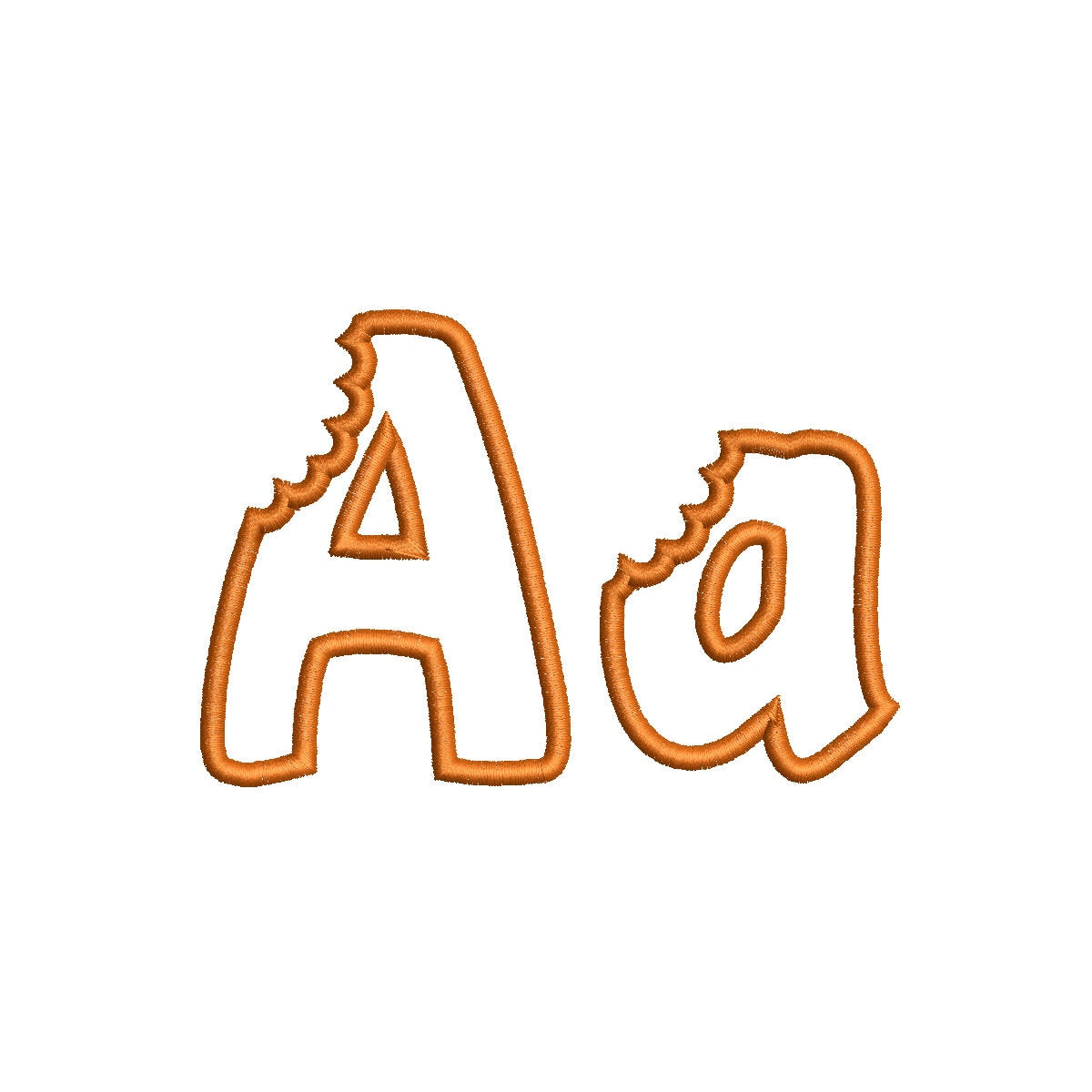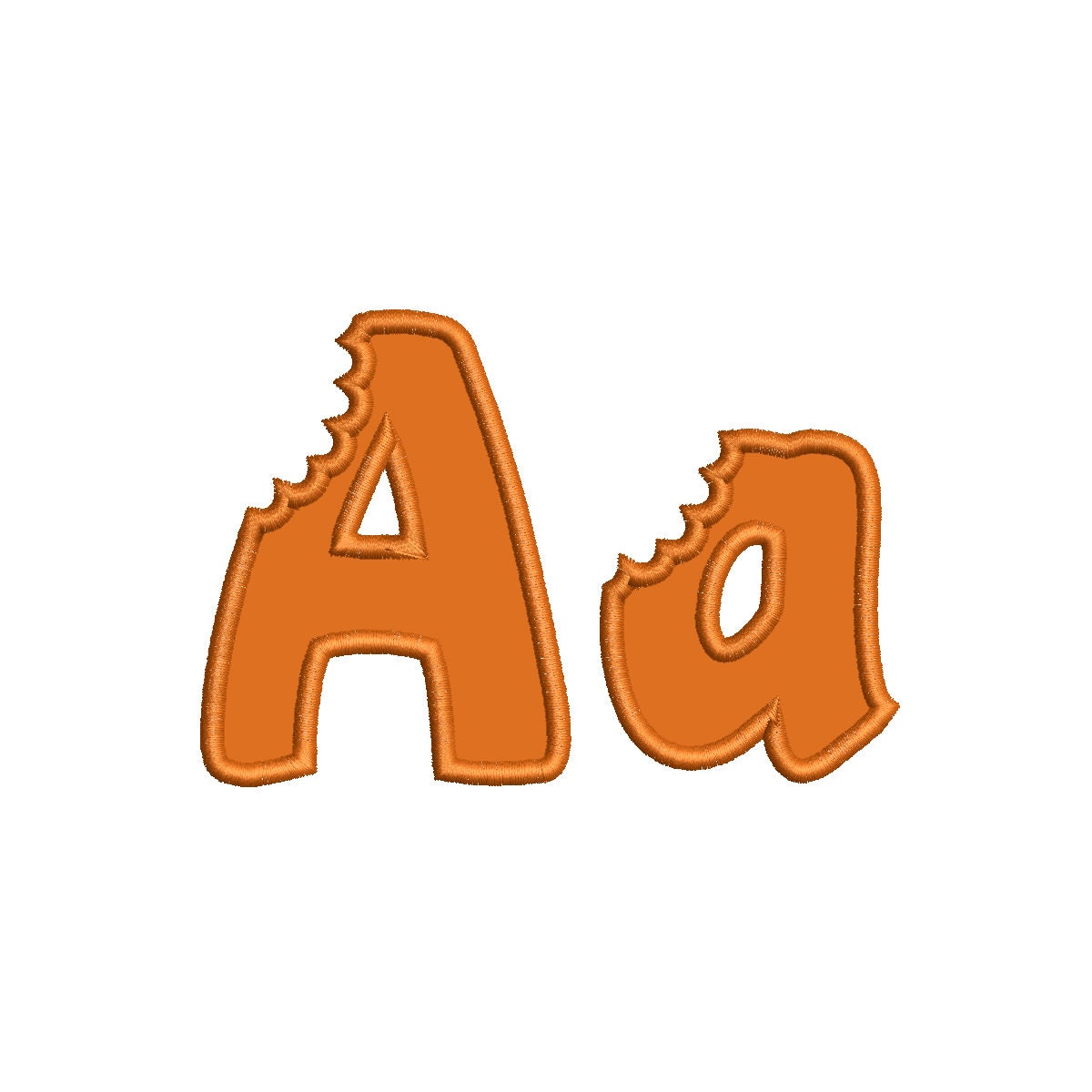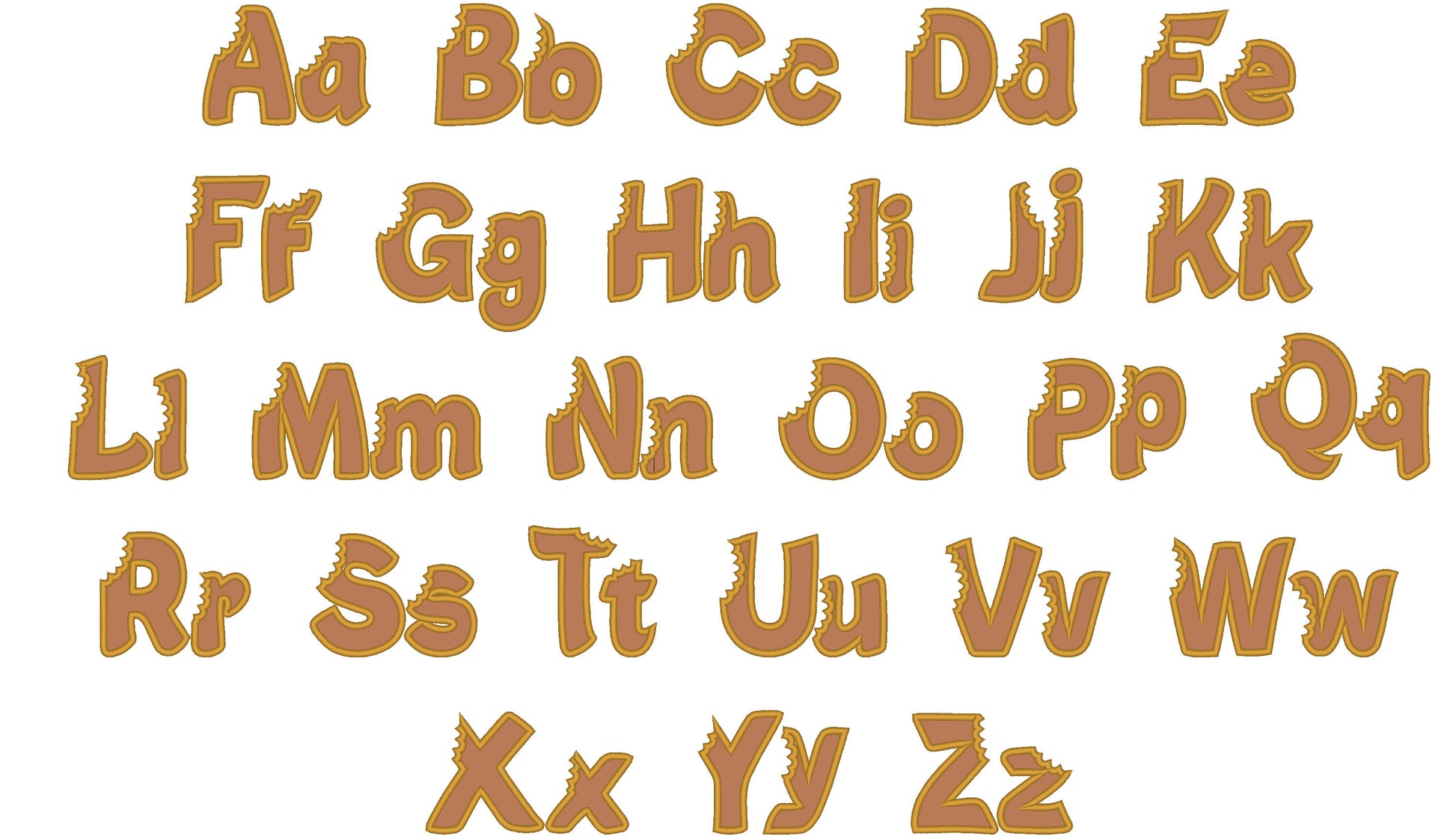
Or click to open the linkA fun applique font where every letter has a bite taken out, like a cookie. Cute for kids' names, shirts, bibs and baking gifts.
Uppercase letters A to Z and lowercase letters a to z in six sizes: 2.3, 2.5, 3.1, 3.6, 4.3 and 5.2 inches, stitched as applique with a wide satin stitch outline and a playful bitten edge.